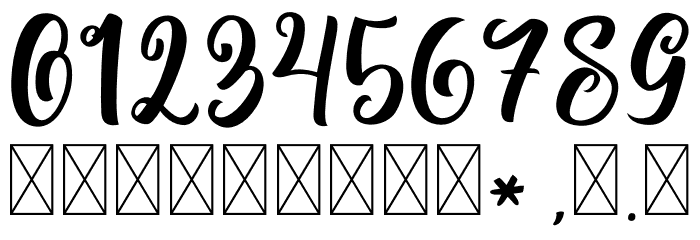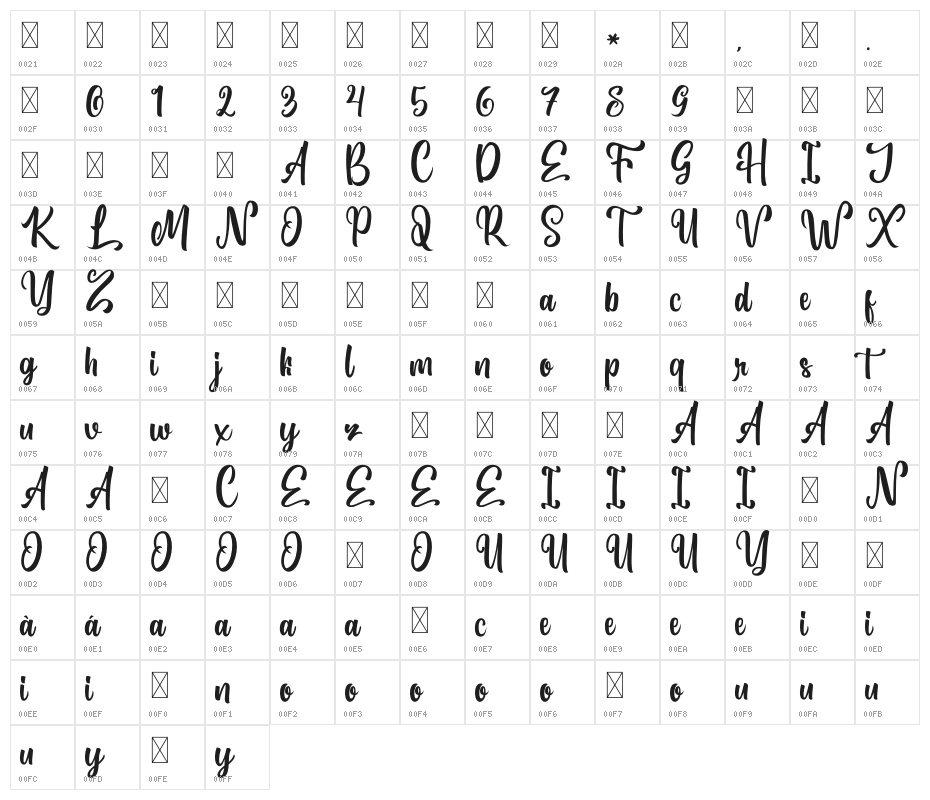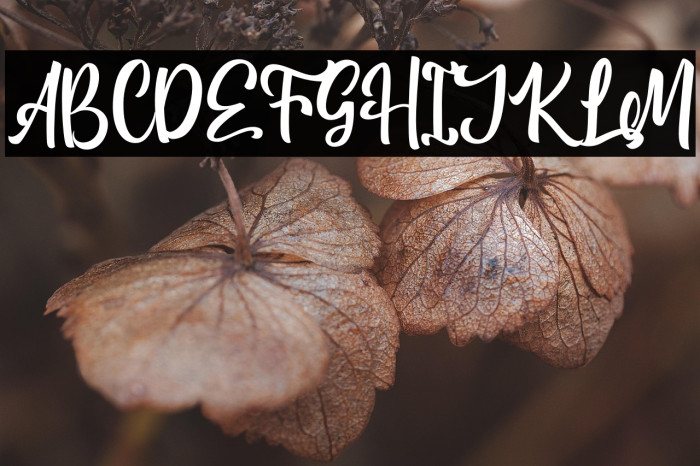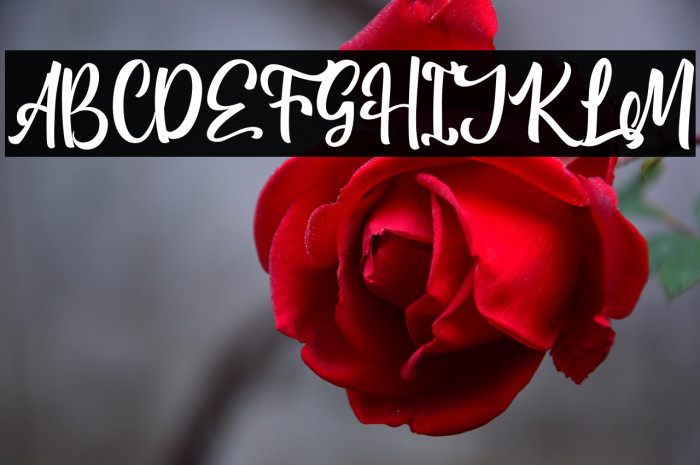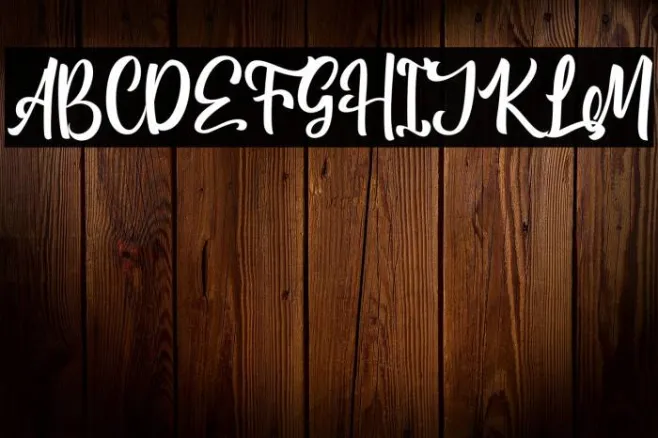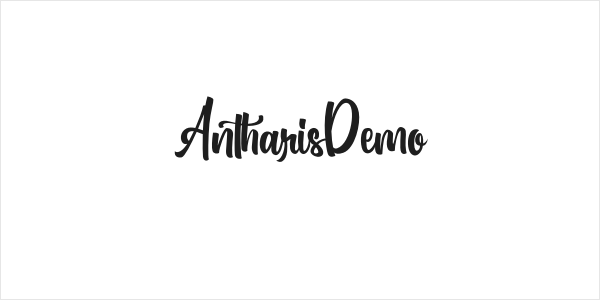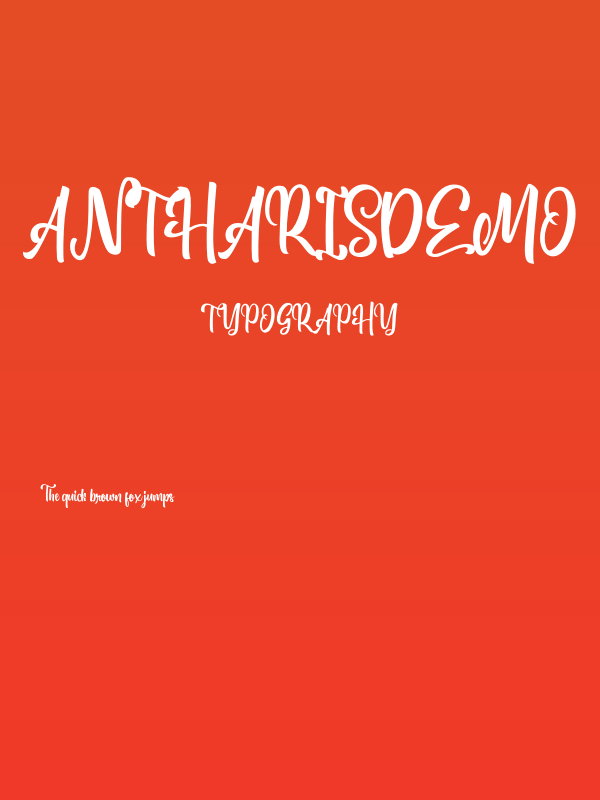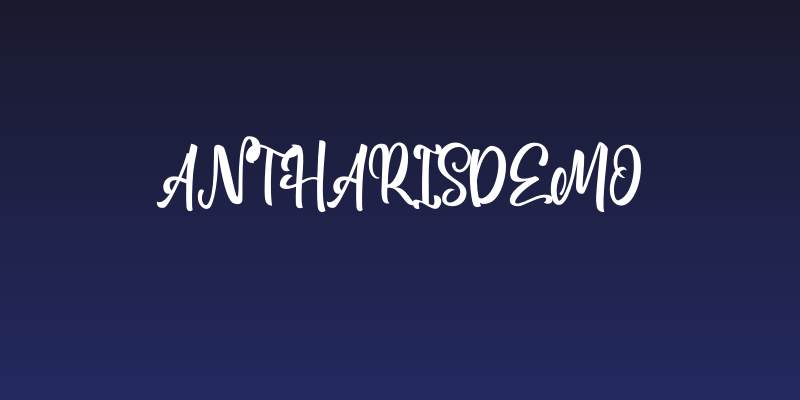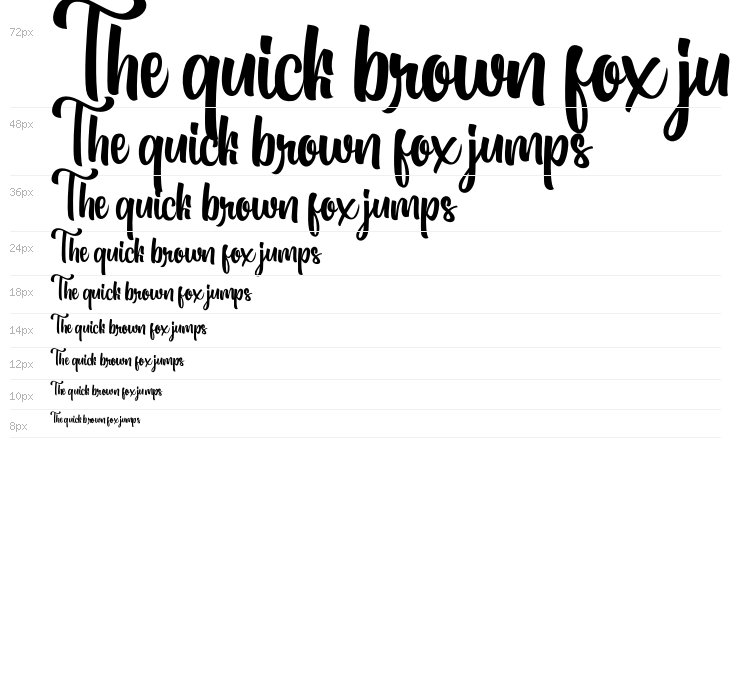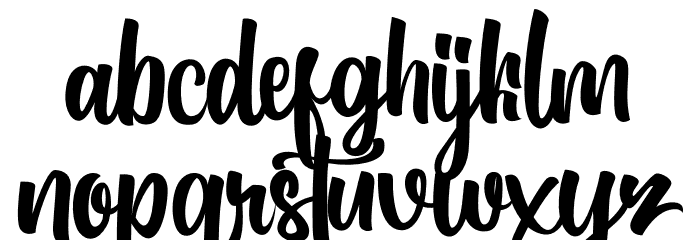
AntharisDemo Font
AntharisDemo Description
This font features a bold, flowing script style with a modern flair. The uppercase letters are elegantly curved, with a playful yet sophisticated appearance. The lowercase letters maintain a consistent flow, enhancing readability while retaining a unique character. Numbers are designed with a similar boldness, ensuring they stand out clearly. The special characters are crafted to match the overall aesthetic, making them suitable for various design needs. This font's dynamic strokes and smooth curves make it ideal for creative projects.
Use CaseLogos, Headlines, Invitations
Proposed ProjectsIdeal for branding, invitations, greeting cards, and social media graphics.